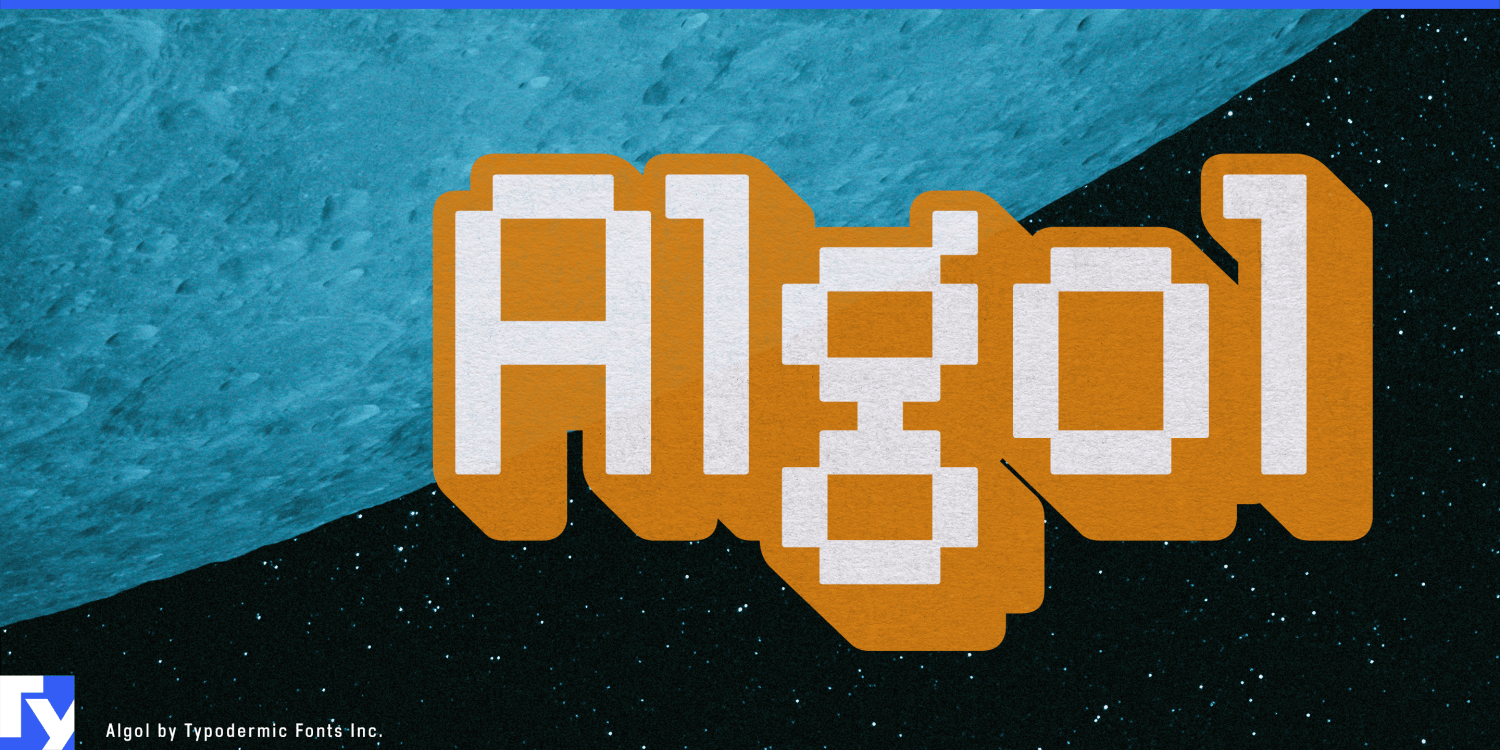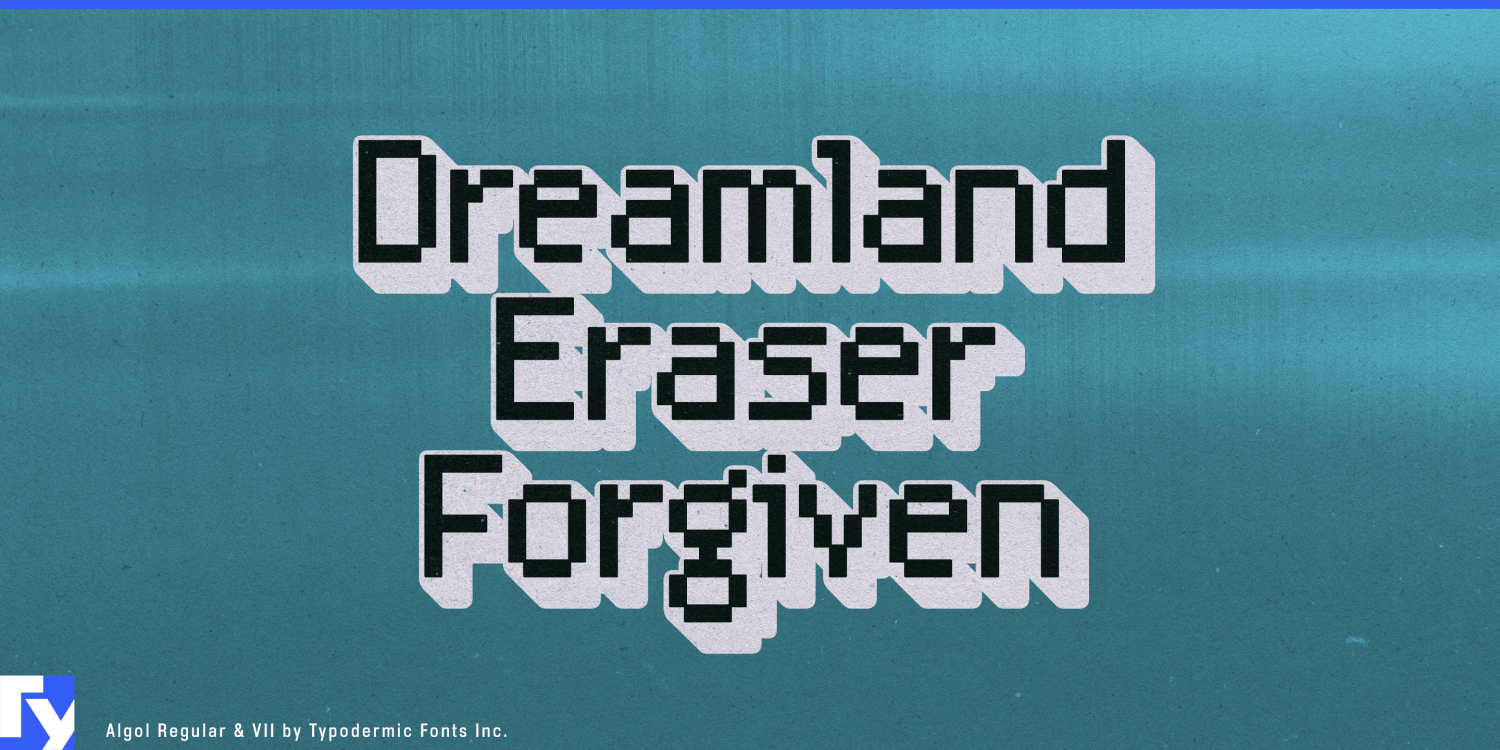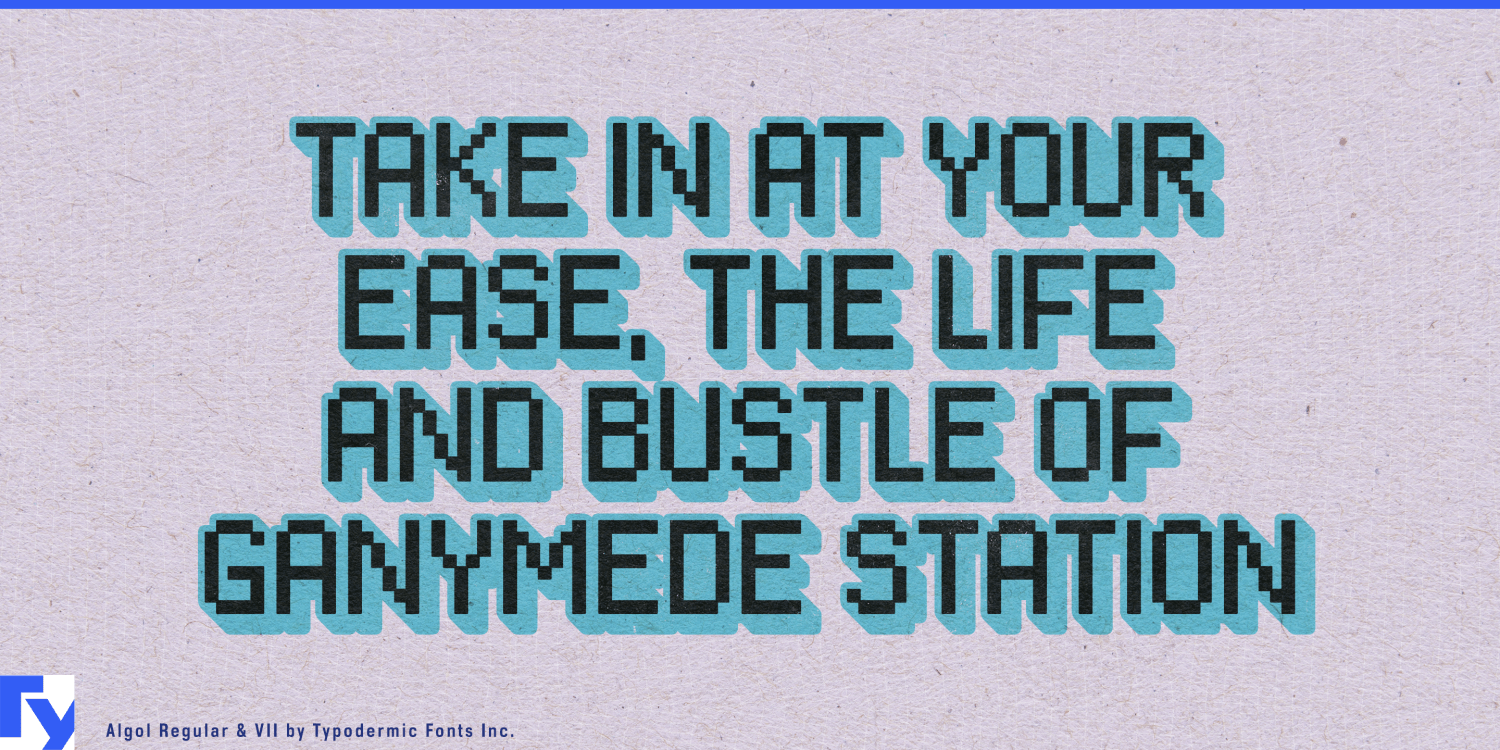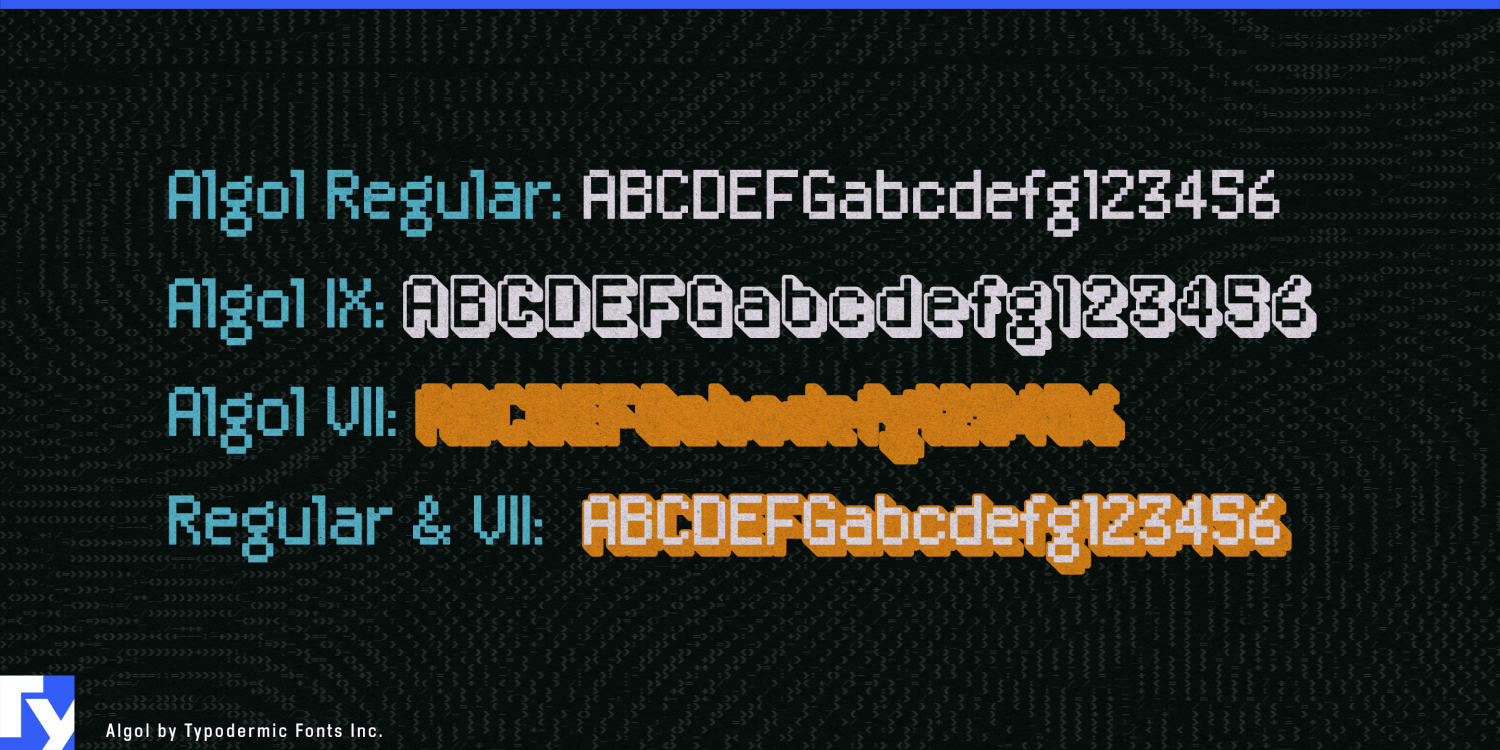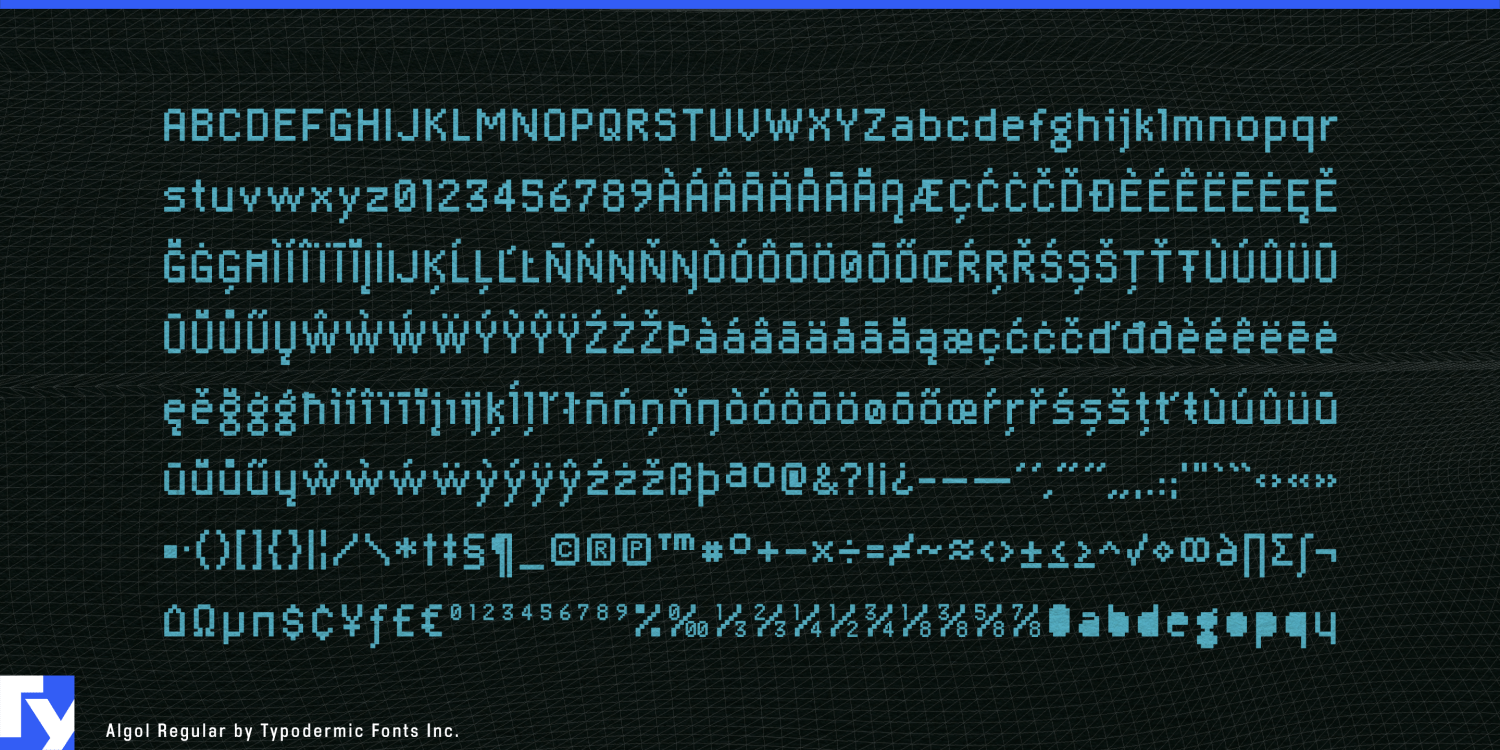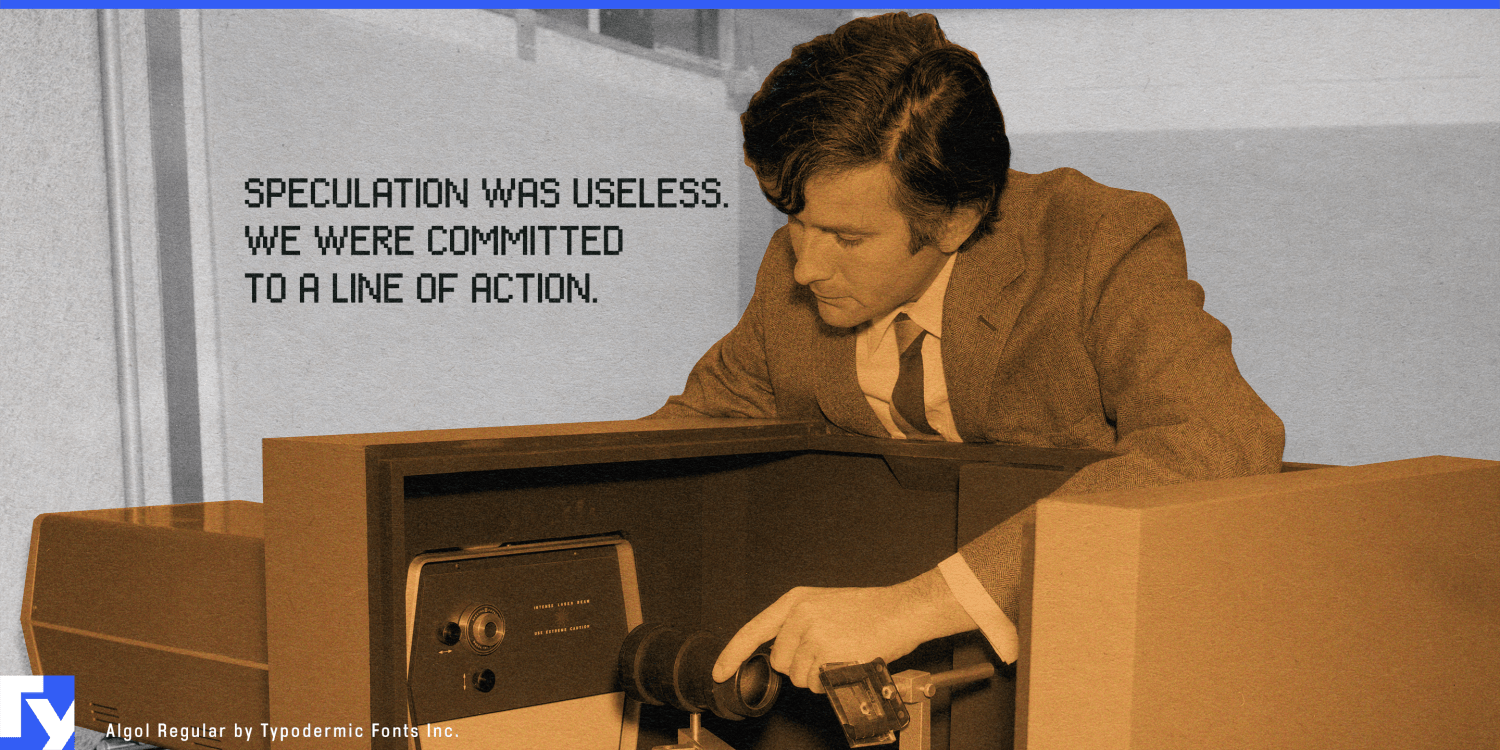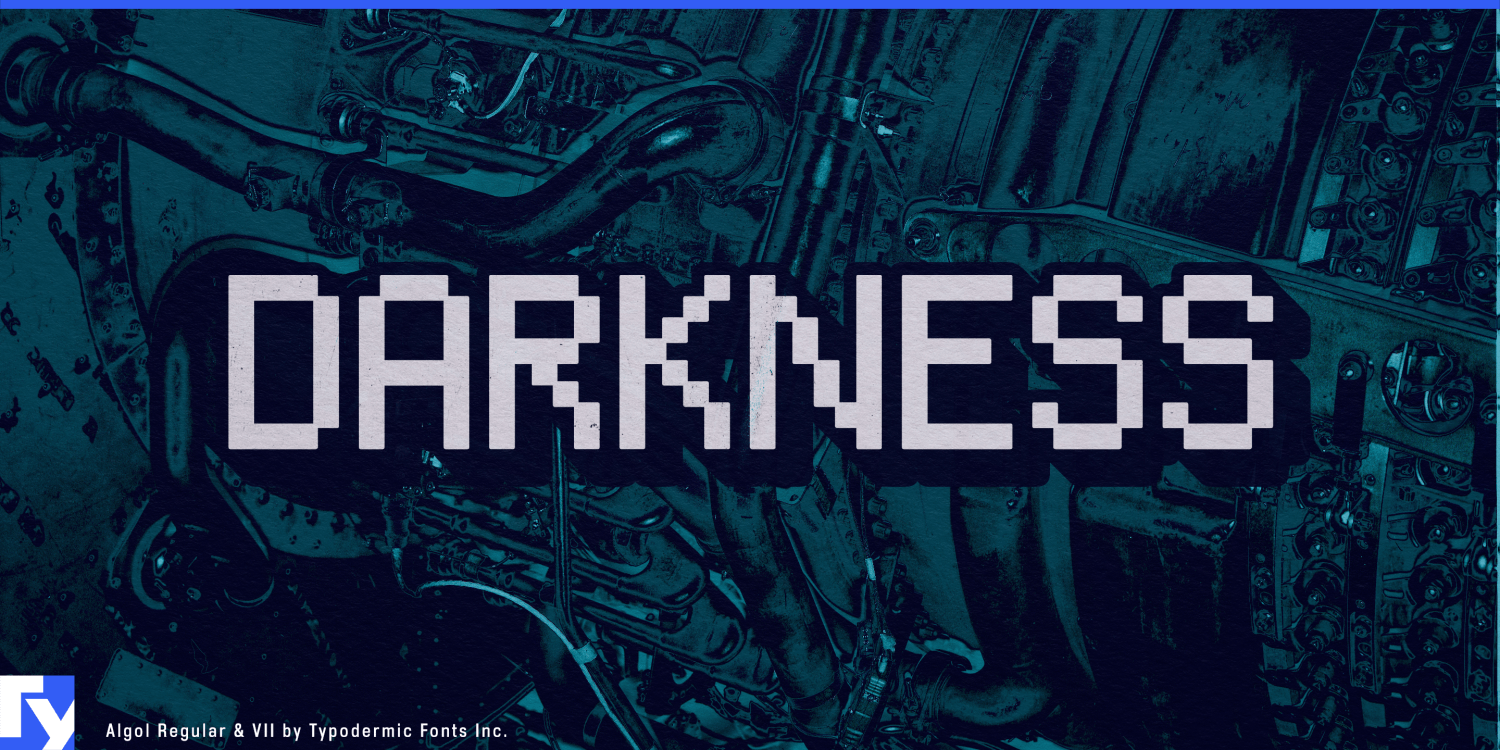
Algol
Font Family by Typodermic
Introducing Algol, a low-resolution display typeface that reimagines classic computer pixel fonts with a contemporary twist. This innovative font family from Typodermic Fonts blends nostalgia with modern design sensibilities, creating a unique typographic experience that stands out in today’s digital landscape.
Algol’s distinctive character lies in its softened pixel junctions. By incorporating rounded corners at intersections, it achieves a gentler aesthetic that sets it apart from traditional pixel fonts. This subtle refinement makes Algol ideal for vinyl-cut signage systems and designs that require a more approachable digital look.
The Algol family consists of three versatile members, each offering its own creative possibilities. Algol Regular forms the foundation, perfect for primary text and establishing the core pixel aesthetic. For those seeking to create eye-catching designs, Algol VII is designed to layer seamlessly with Algol Regular, enabling striking color combinations that add depth and visual interest. Completing the trio is Algol IX, which features relaxed spacing and hidden alternate letters with closed counters, expanding the creative horizons for designers who want to push the boundaries of pixel typography.
Algol’s linguistic versatility is impressive, supporting most Latin-based European languages. This broad language coverage ensures your pixelated designs resonate across diverse markets, from Estonian tech startups to Portuguese retro gaming events, maintaining their distinctive character regardless of the language used.
For designers seeking to infuse their work with digital nostalgia while maintaining a contemporary edge, Algol provides the perfect typographic solution. It’s more than just a font—it’s a bridge between the pixelated past and the high-resolution present, allowing creators to craft visual experiences that are both familiar and refreshingly new.
Embrace the pixel-perfect precision of yesteryear with the refined touch of today. Let Algol transport your designs to a realm where retro charm meets modern sophistication, creating visual narratives that capture the essence of early digital aesthetics while speaking to current design sensibilities.